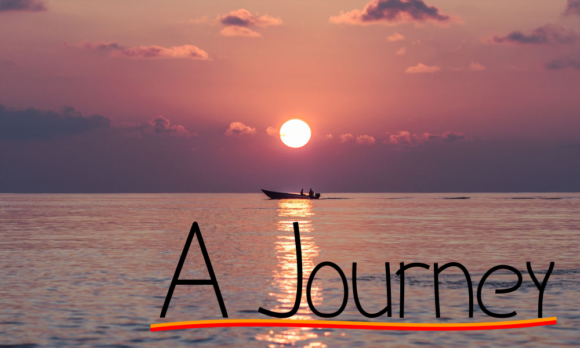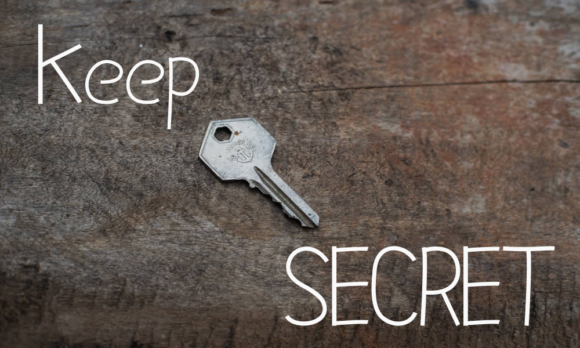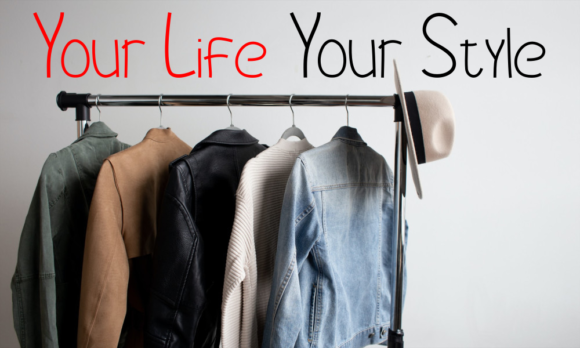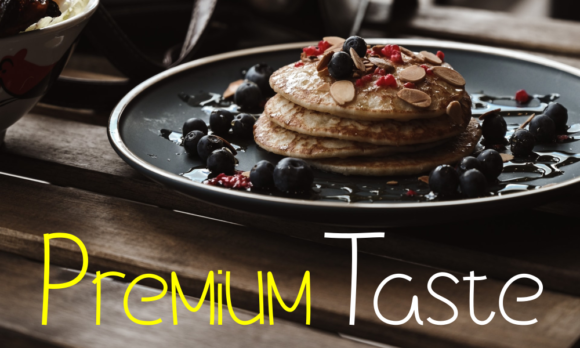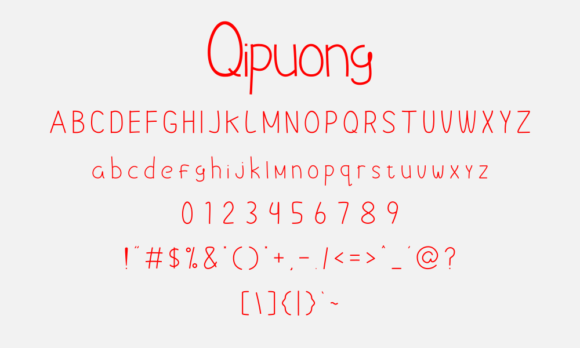
Introduction to Qipuong Font
You know that feeling when you’re brainstorming ideas for a creative project and suddenly, everything clicks? It’s like a spark of inspiration that sets your imagination ablaze. For designers, this moment can be particularly thrilling, especially when they stumble upon the perfect design resource to bring their vision to life.
This is exactly what happened when I discovered the Qipuong Font. Its unique, handwritten style has been a game-changer for me and my design team, and we’re not alone. This versatile font has captured the hearts of many creatives, and for good reason. Its authentic look is perfect for adding a personal touch to chalkboard quotes, teaching materials, and more.
Key Features of Qipuong Font
- Qipuong Font comes in a transparent background, making it perfect for designers looking for a clean and minimalist design resource.
- The font is designed to be scalable, with a size range of 8pt to 1000pt, ensuring it looks great in various design applications, from small logos to large-scale signage.
- Its unique, modern design makes it a popular choice among designers working on creative projects, from branding and packaging to editorial and publishing.
Honest Review: Qipuong Font
I recently came across the Qipuong Font and was excited to try it out in my next creative project. Overall, I’m impressed with its design and usability.
What works well: ✨ I love that the Qipuong Font is a high-quality font that’s perfect for designs that require a unique, vintage feel. The transparent background makes it easy to use in various design elements, from logos to typography. I also appreciate that it’s available for free download, making it an excellent resource for designers on a budget.
What doesn’t work so well: ⚠️ One limitation I’ve noticed is that the font may not be suitable for body text, as it’s quite ornate and can be difficult to read at small font sizes. Additionally, some characters may not be included in the font set, which can be frustrating for designers who need to use them.
Overall impression: I’m a big fan of the Qipuong Font and would definitely recommend it for designers who are looking for a unique, high-quality font for their next creative project. With a little creativity and planning, the limitations can be overcome, and the font can be used to create truly stunning designs.
- High-quality design and unique style
- May not be suitable for body text
- Some characters may not be included in the font set